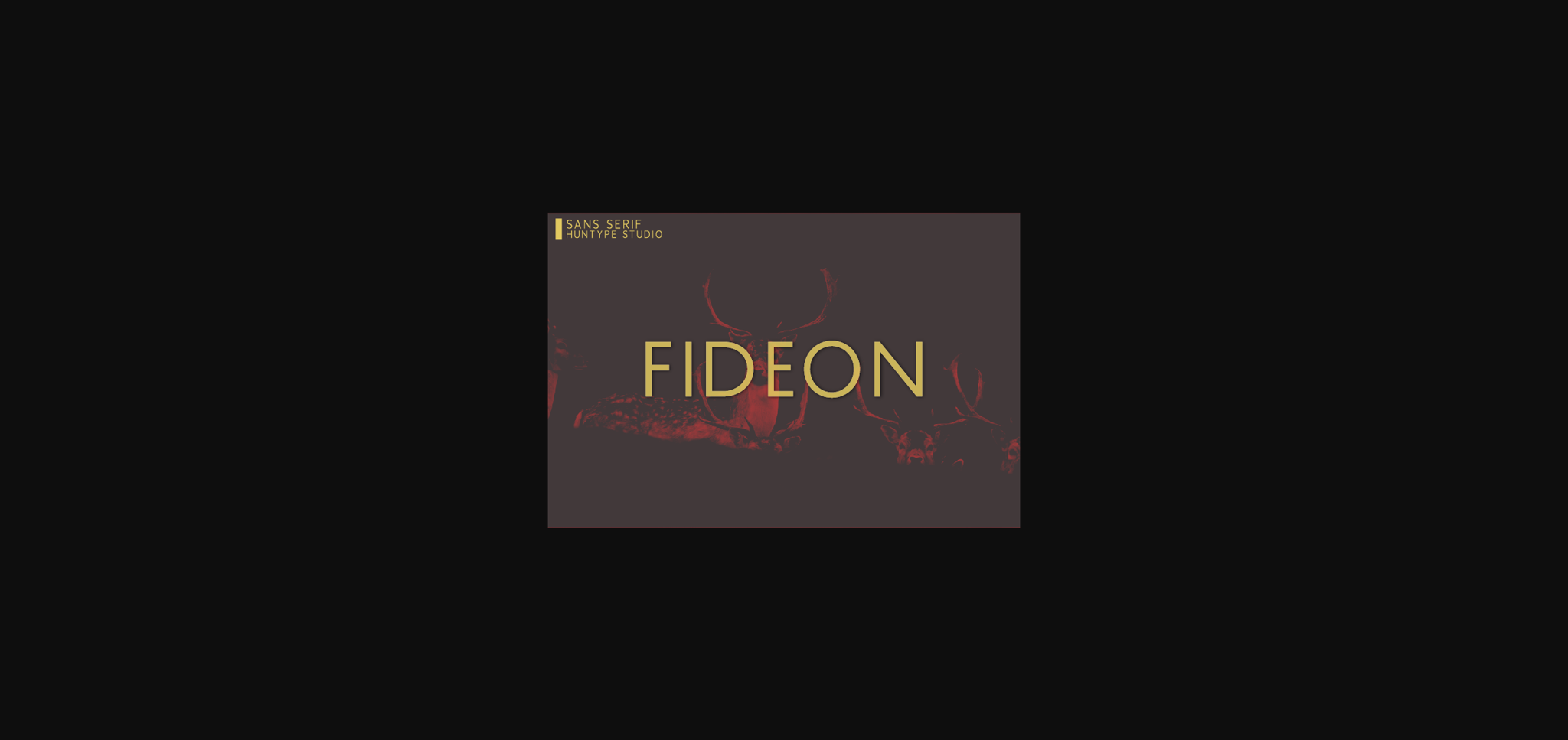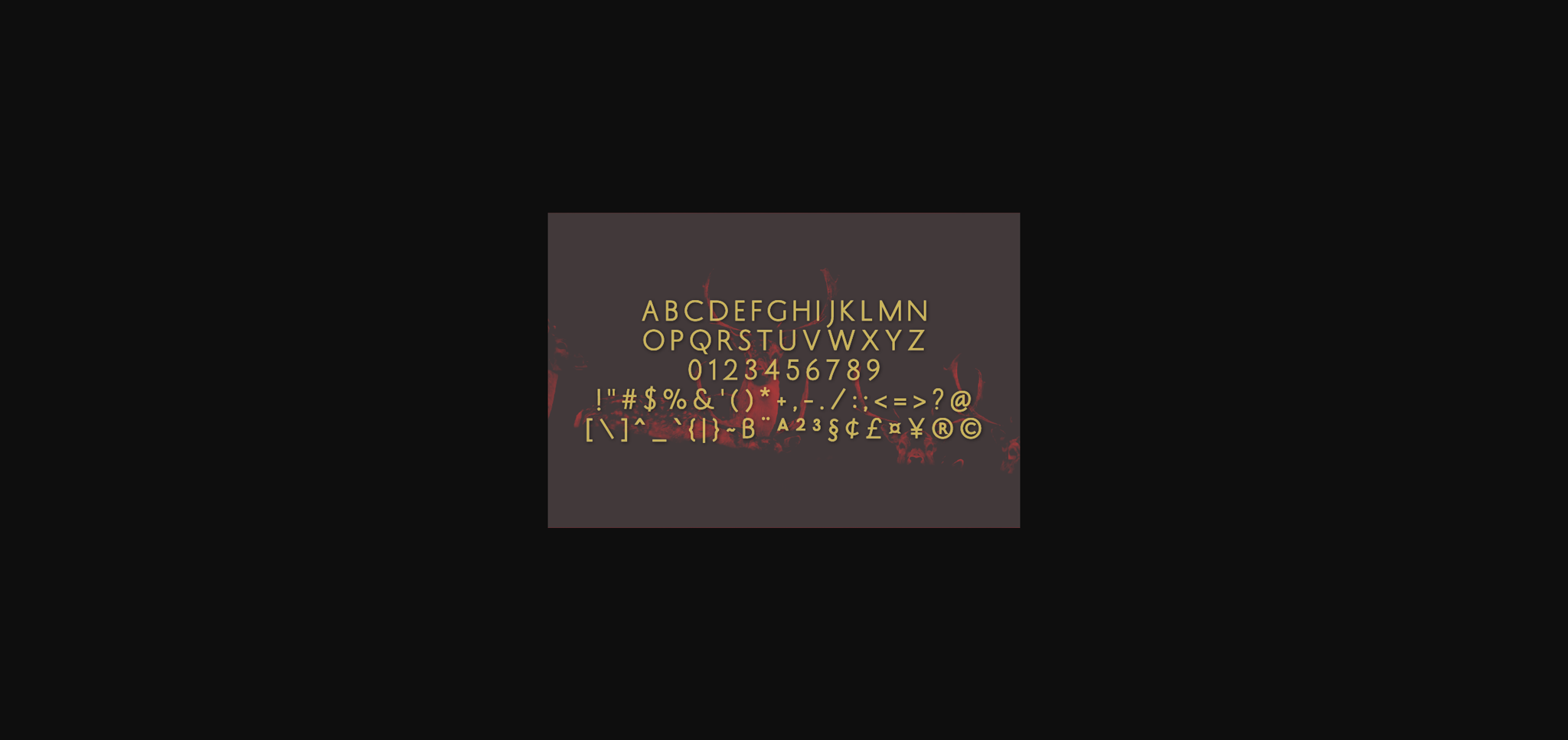
About Fideon Font
Fideon is a modern and clean sans serif font that is versatile and looks great in just about any context. With smooth and clean lines, and just a touch of contrast, Fideon works beautifully for logos, branding, web headings and much more.